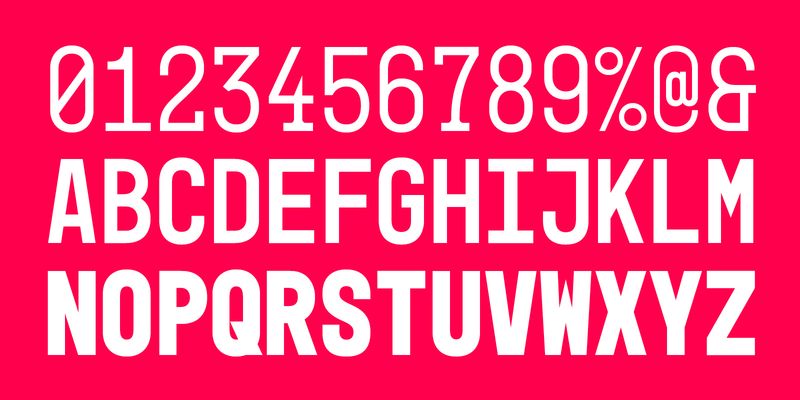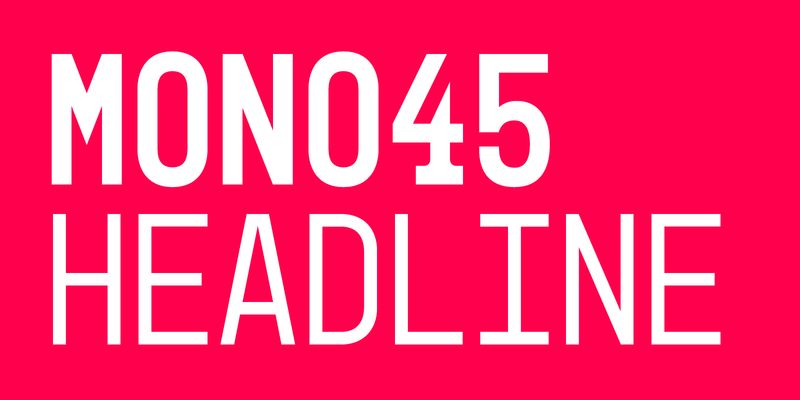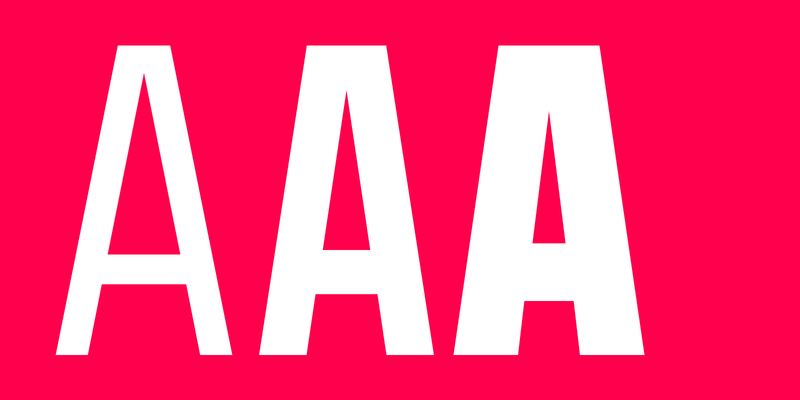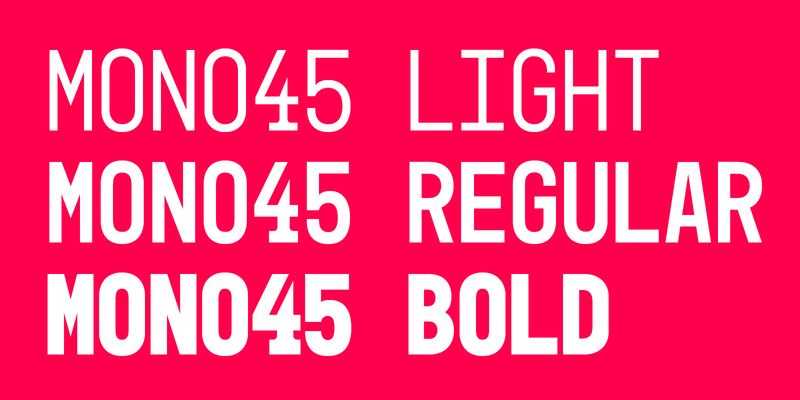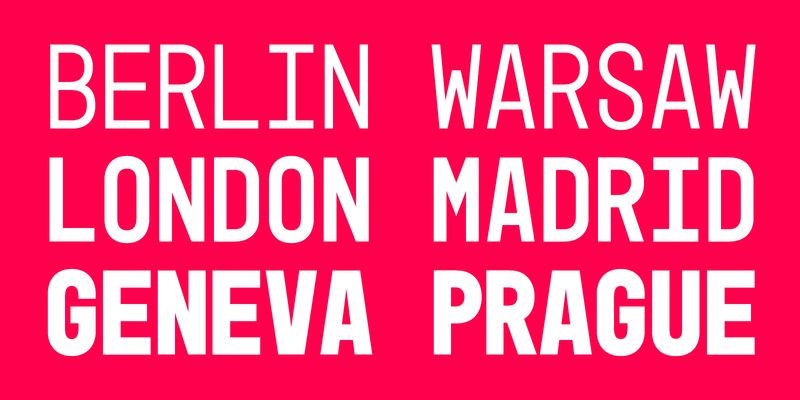
Mono45 Headline is an uppercase font which has got its origins in stamped tickets numbers issued by the University Hospital in Zurich for queuing up to get inoculated. It is thought to be a headline typeface and reminds with its strong character and rustic charm of old condensed poster typefaces and such used in factories or for industrial purposes.